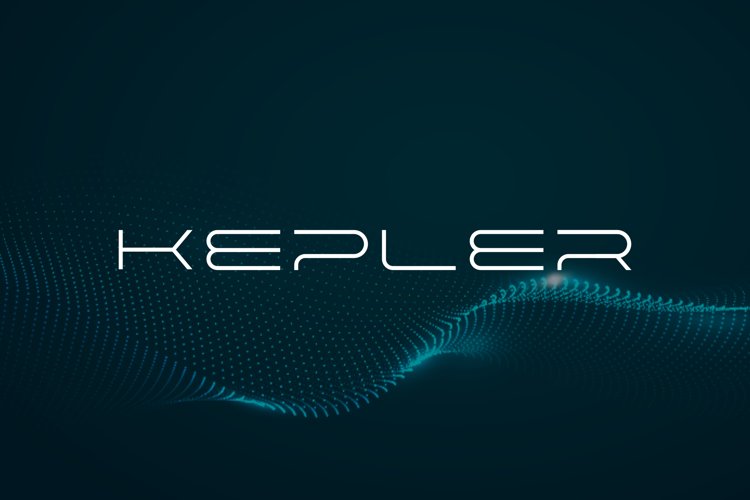
Kepler is a modern and incredibly minimalist display font. No matter the topic, this font will be an incredibly asset to your fonts’ library, as it has the potential to elevate any creation.